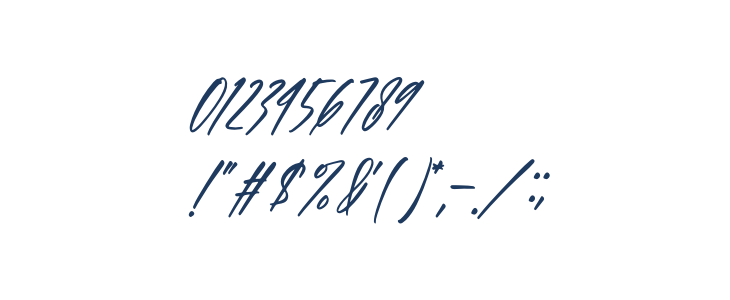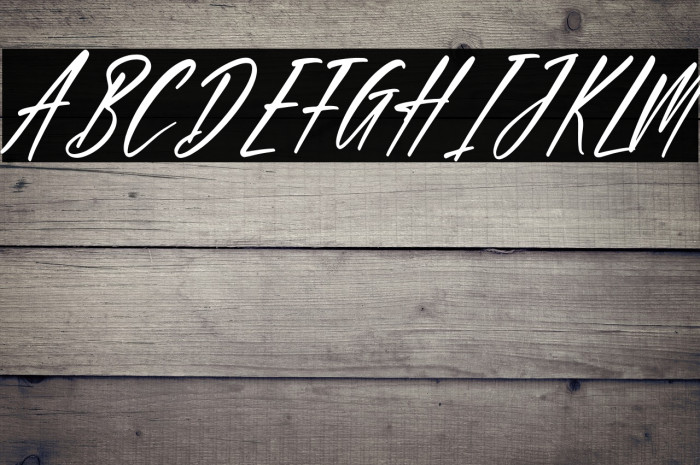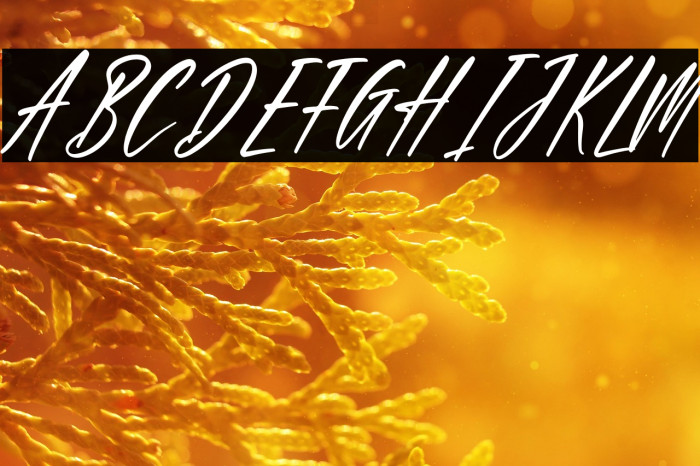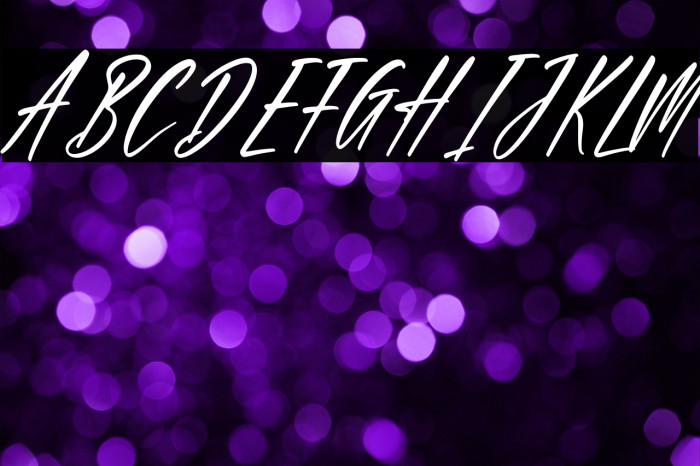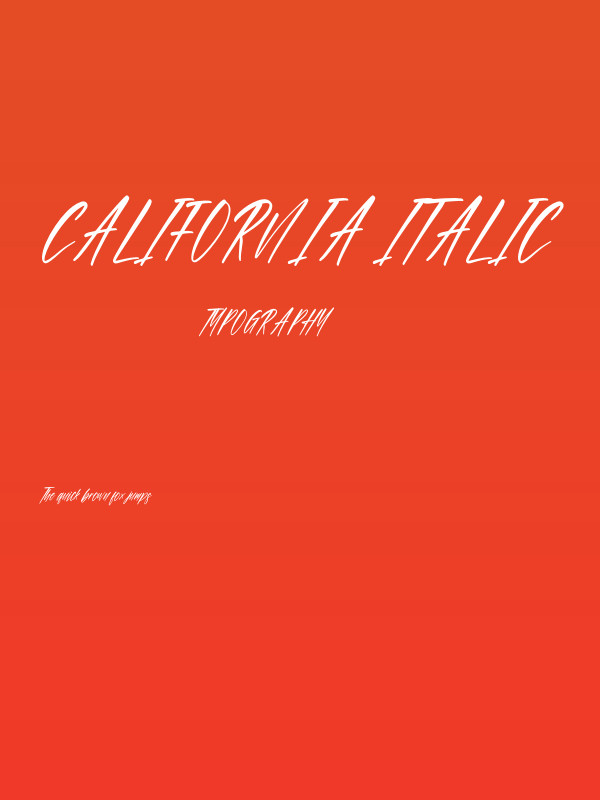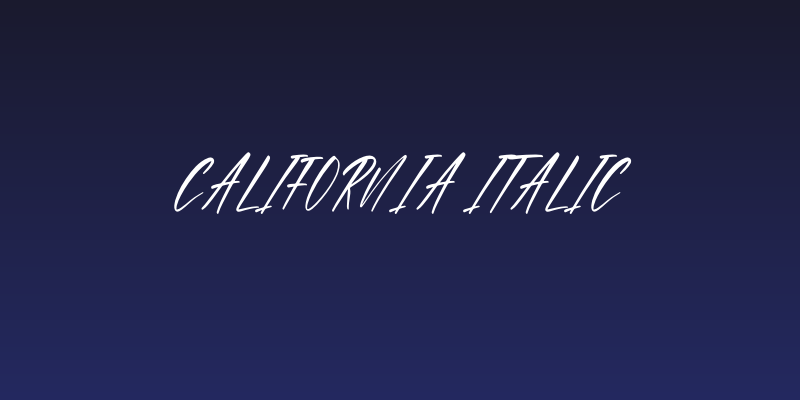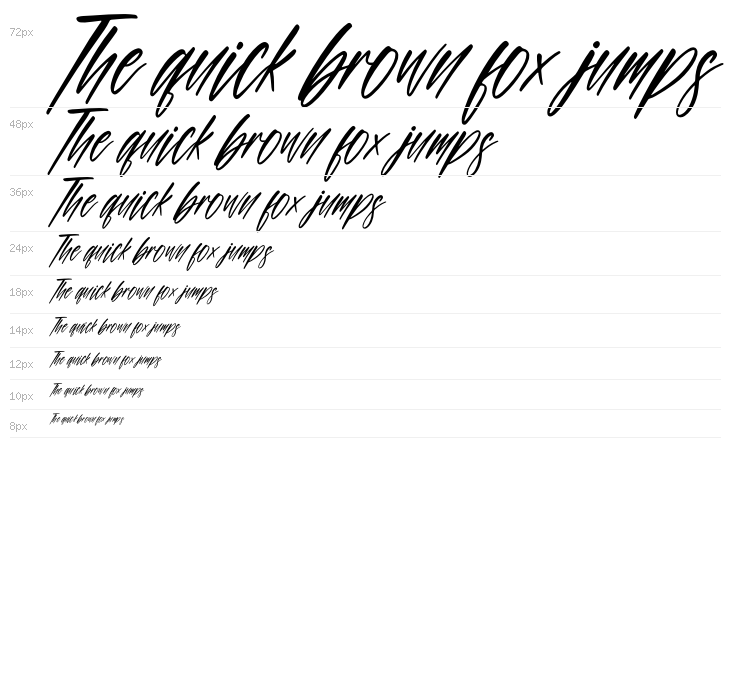
California Italic Font
California Italic Description
This font exudes a dynamic and energetic vibe with its fluid, cursive style. The letters are slanted, giving a sense of motion and elegance. Each character is crafted with smooth, flowing lines that mimic natural handwriting, yet maintain a consistent and polished appearance. The uppercase letters are bold and prominent, while the lowercase letters are slightly more delicate, adding a touch of sophistication. The numbers and special characters follow the same cursive theme, ensuring uniformity across all elements. This font is perfect for projects that require a personal, yet professional touch.